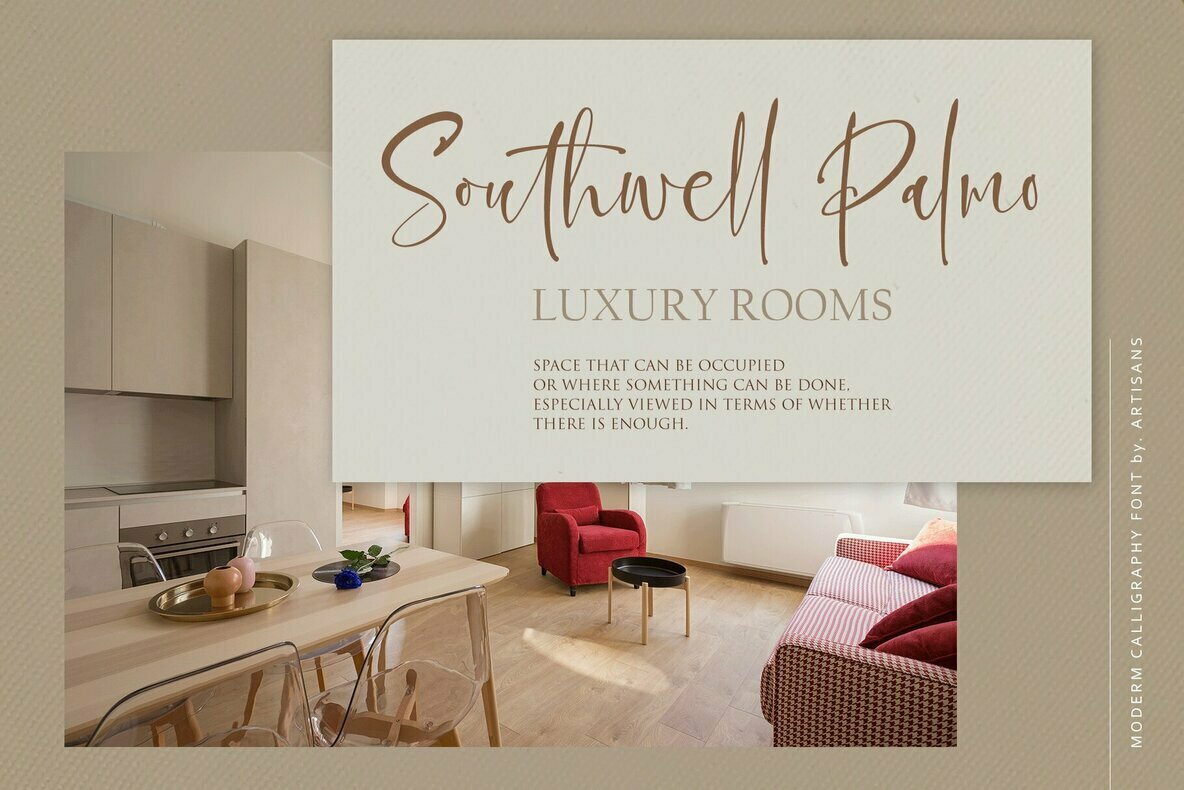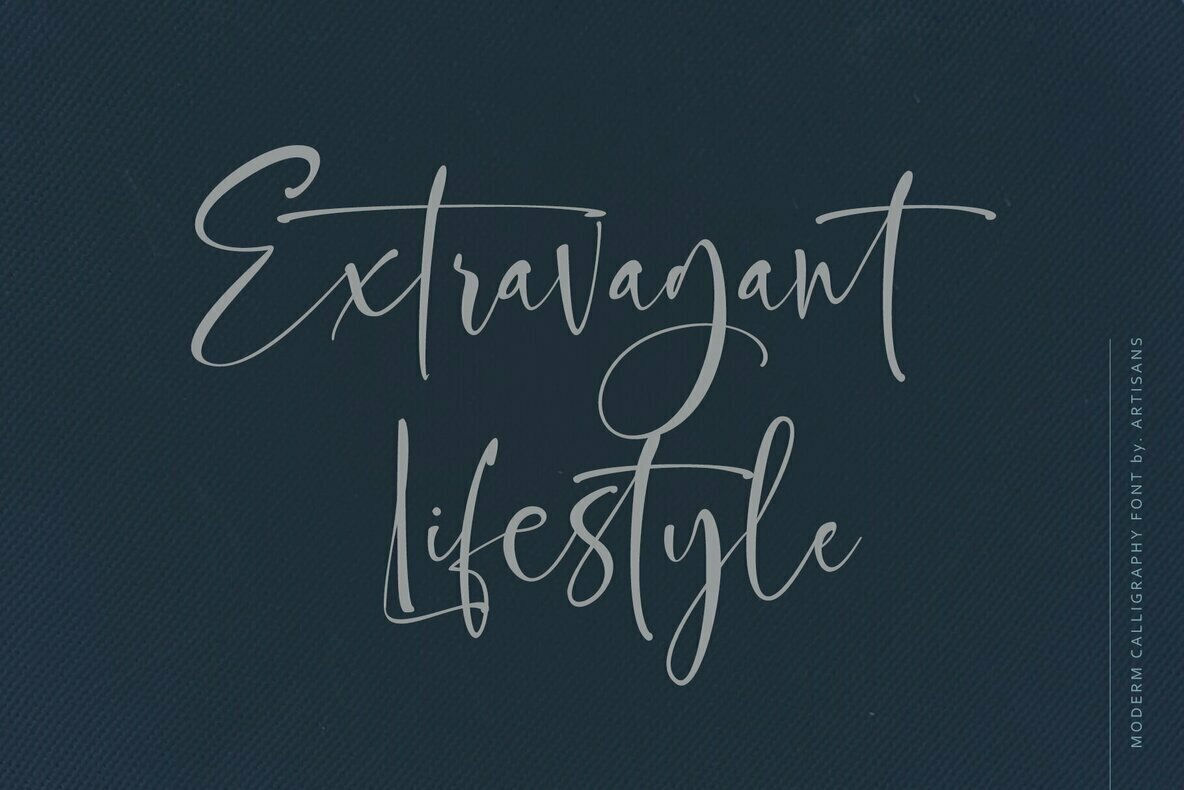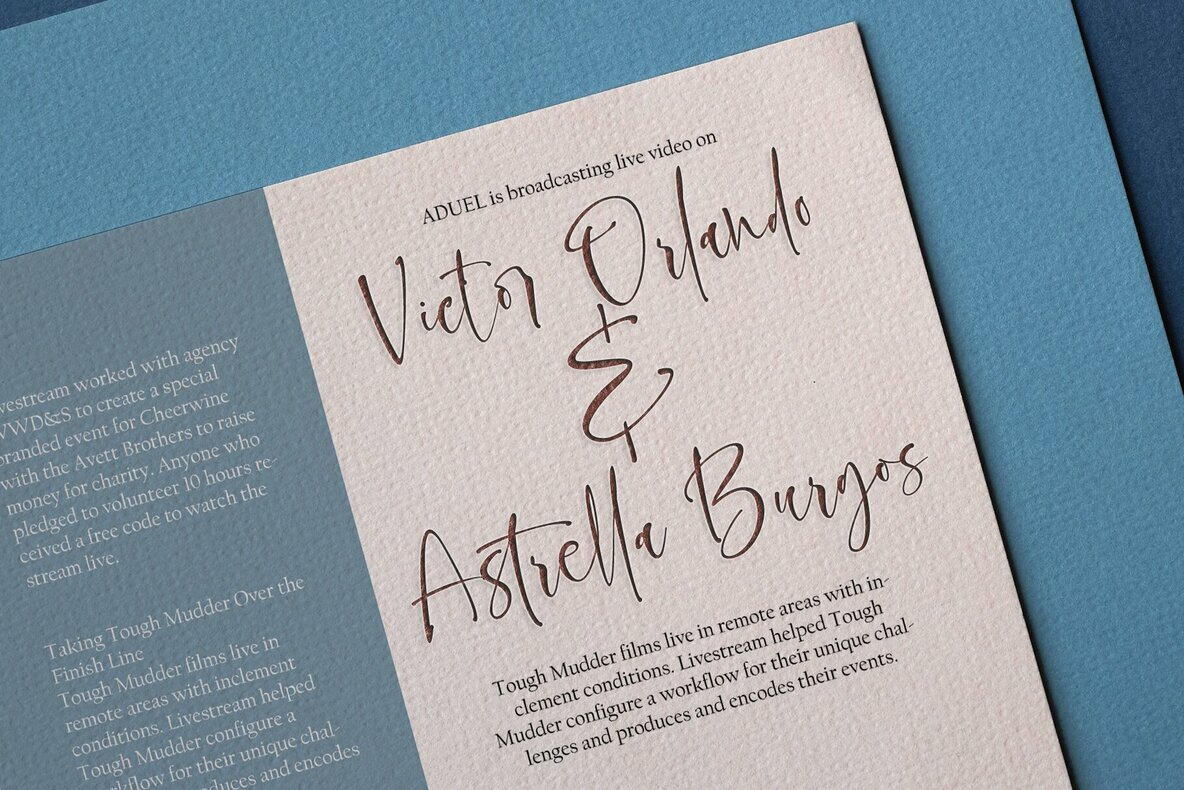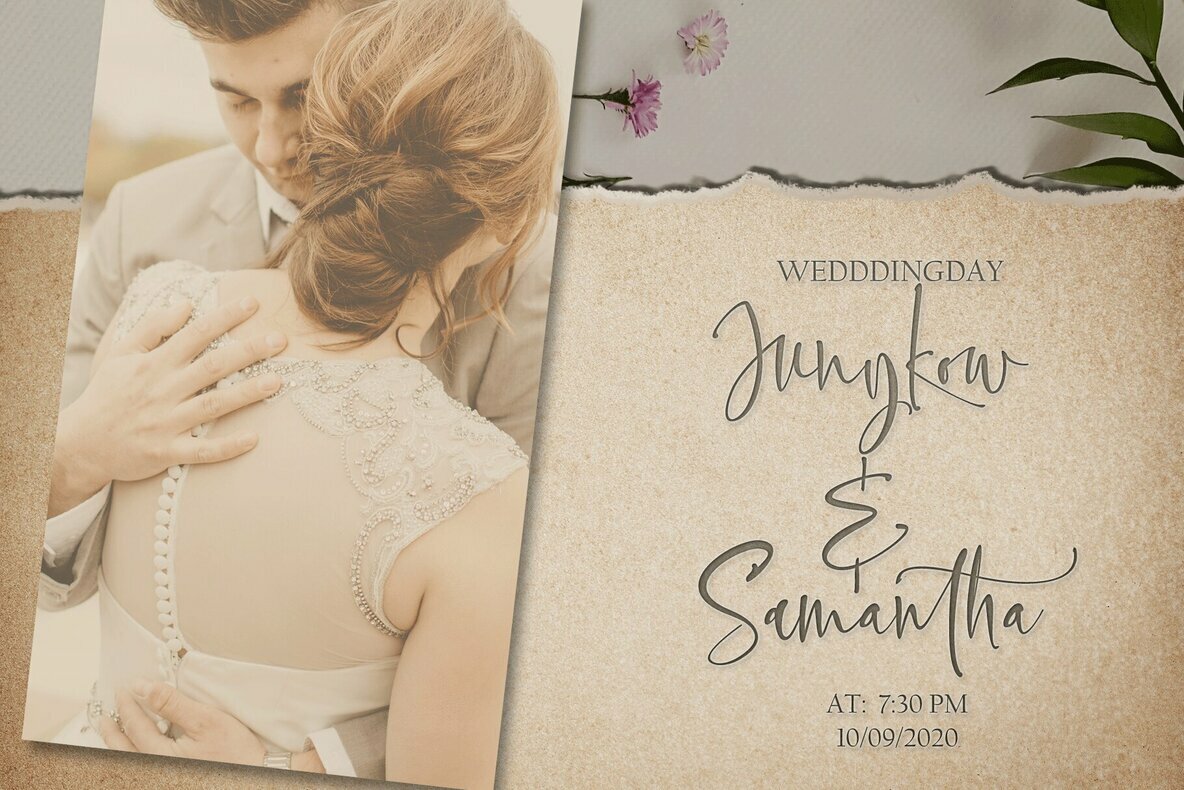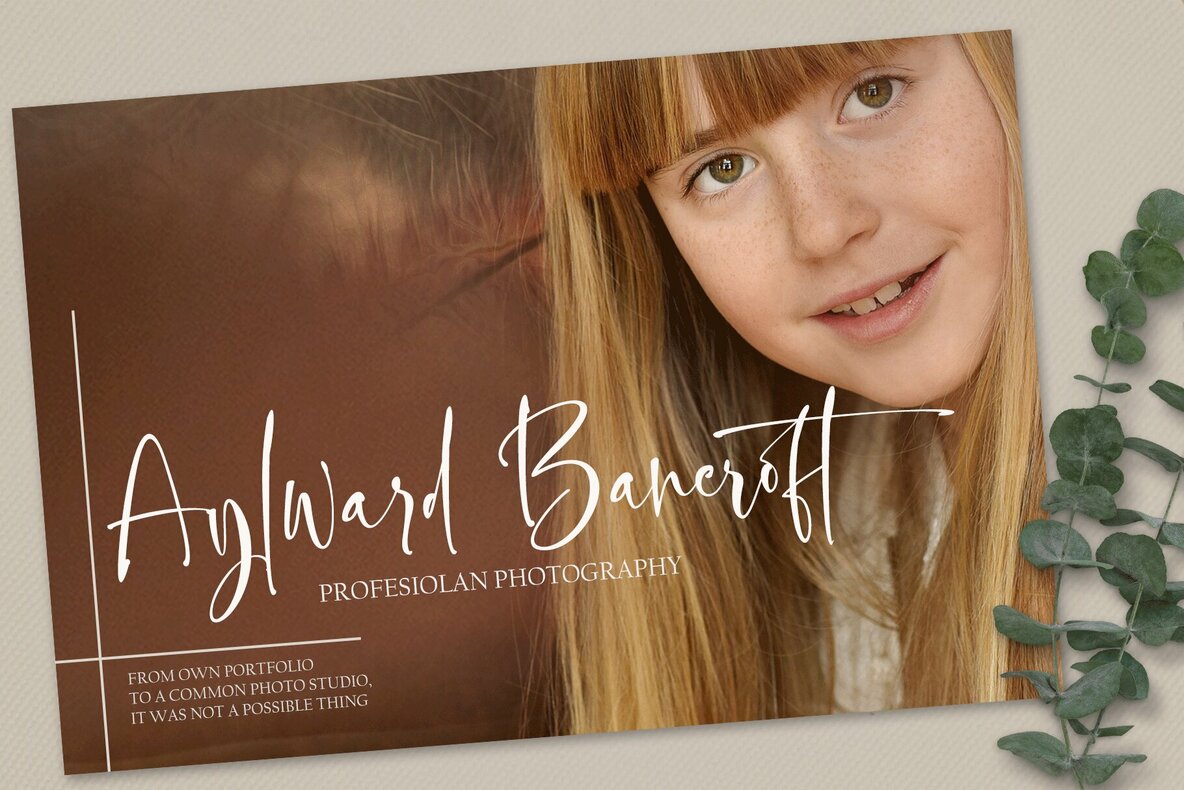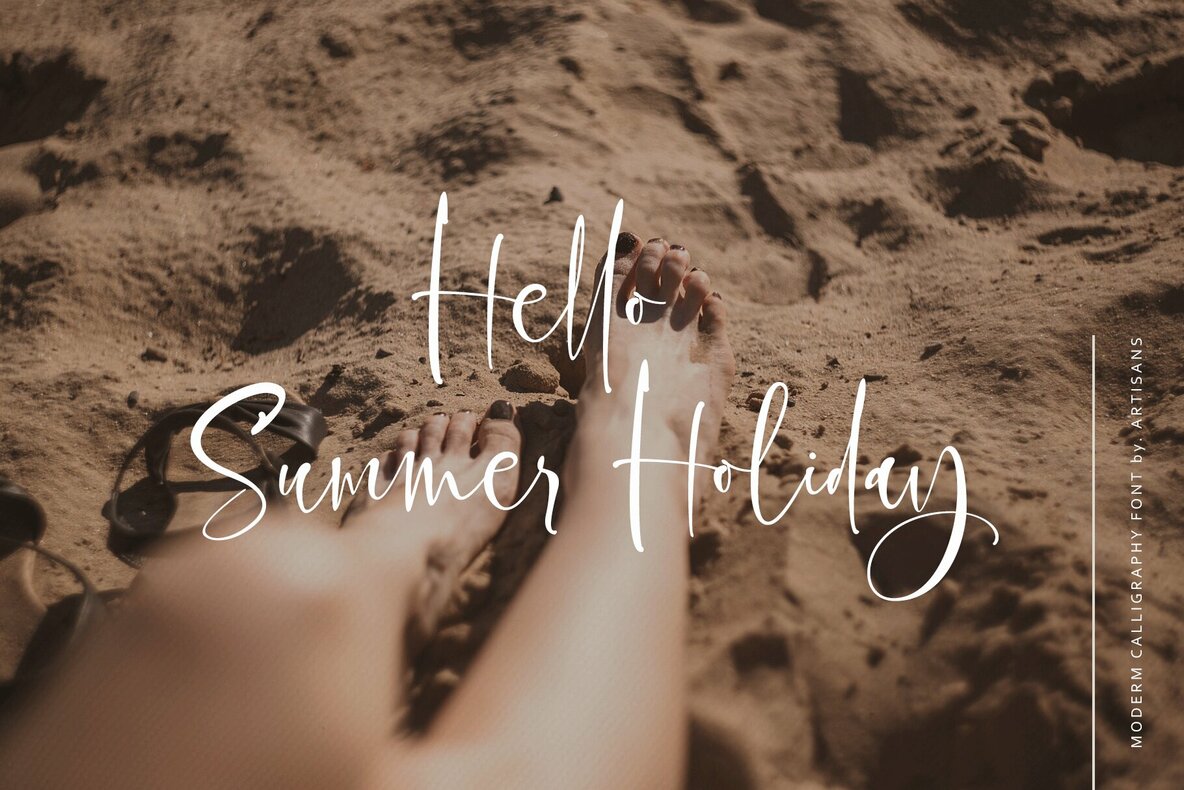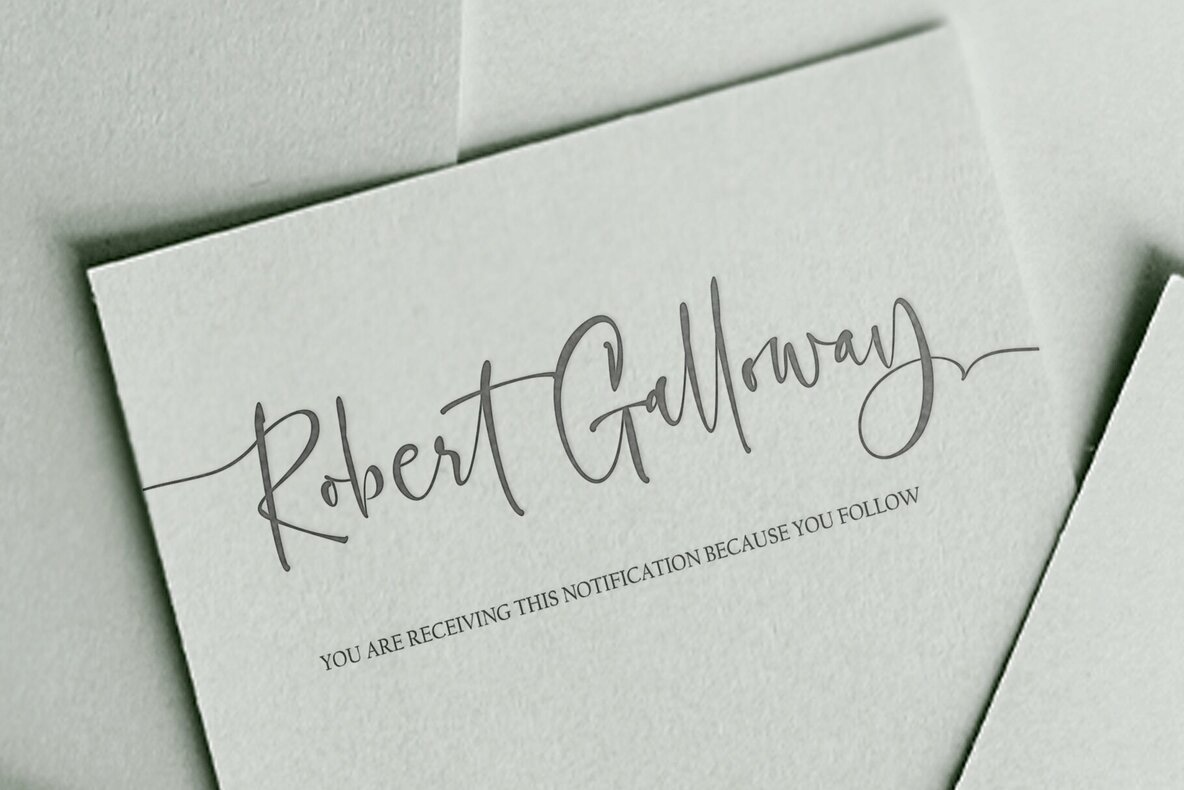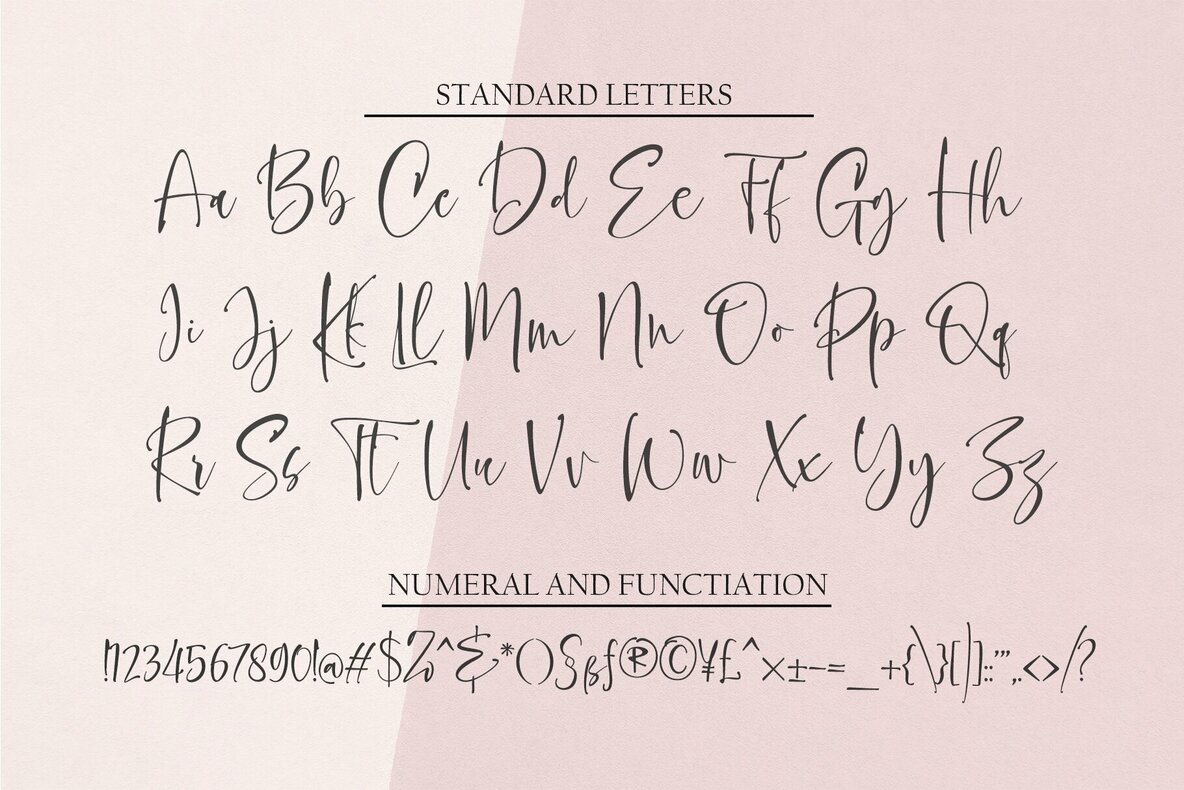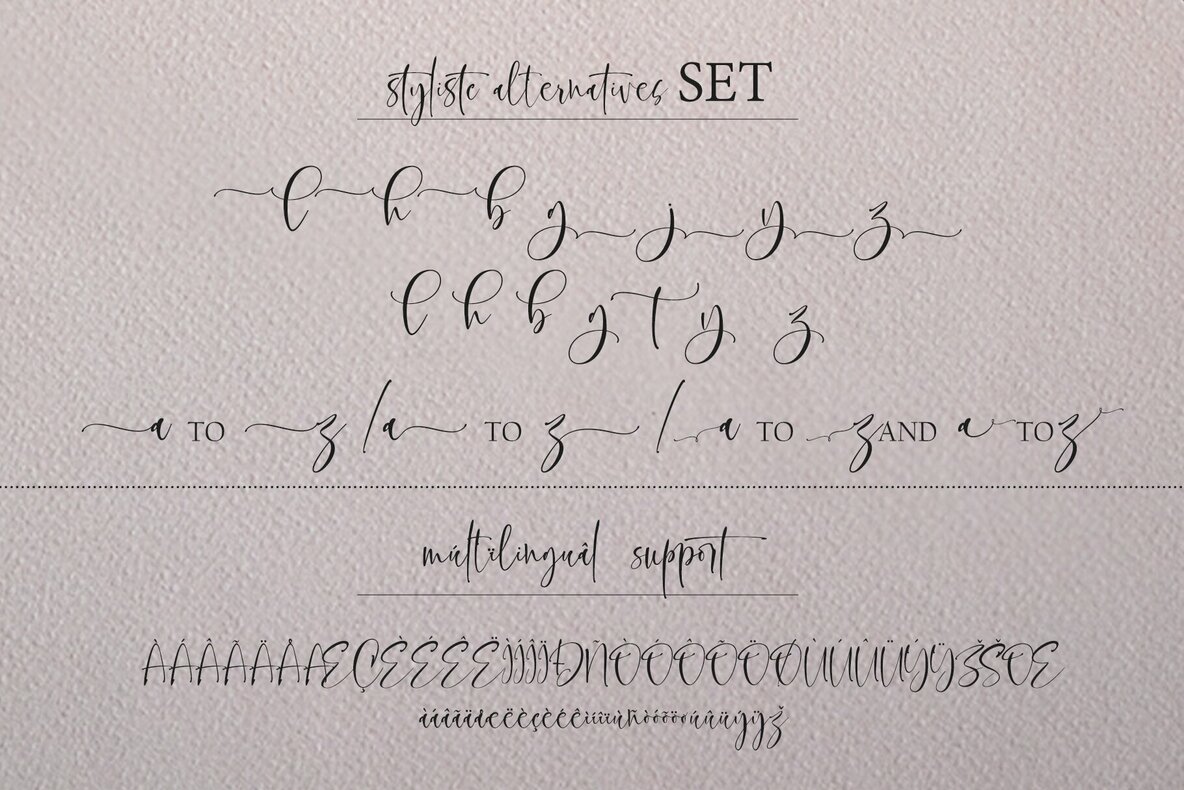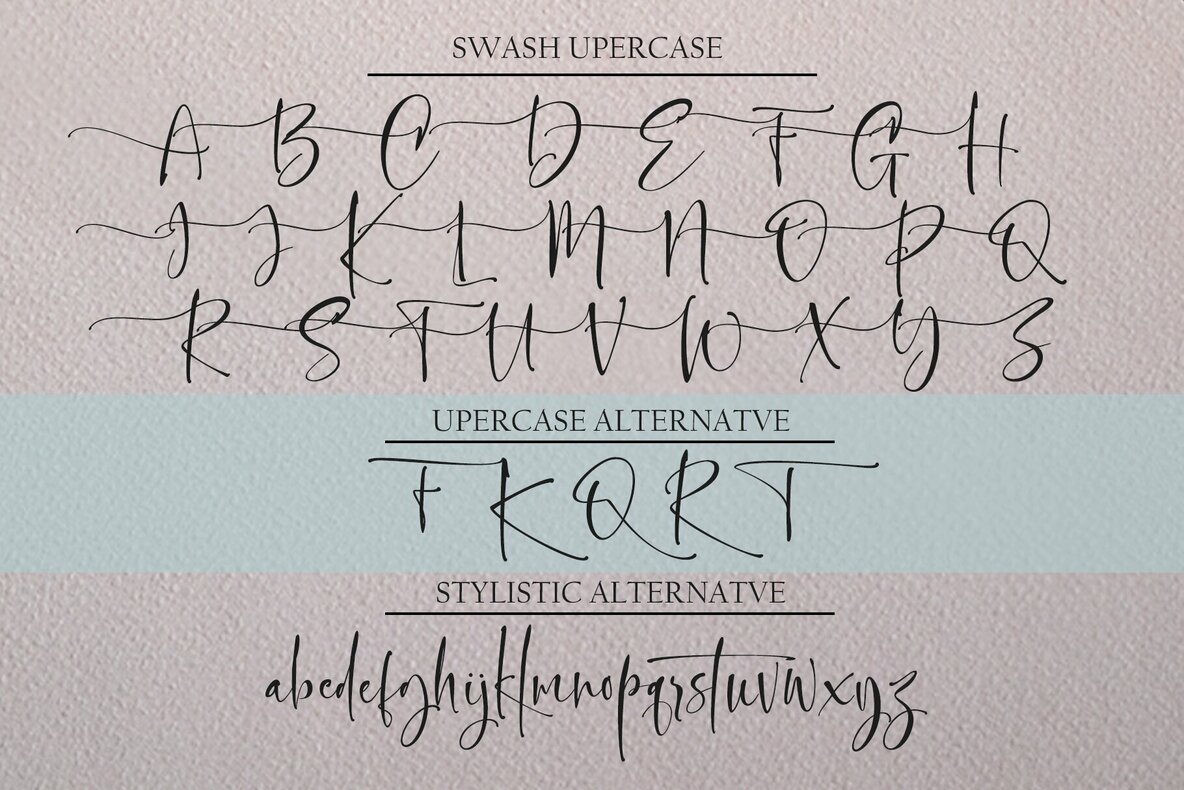
Clarithy Font
Clarithy by Artisan Studio captures the organic beauty of handwriting, offering a natural charm that perfectly complements various design needs. Whether you're crafting invitations or enhancing social media presence, Clarithy brings an authentic touch to each project.Clarithy: Handwritten Elegance Meets Versatile Design